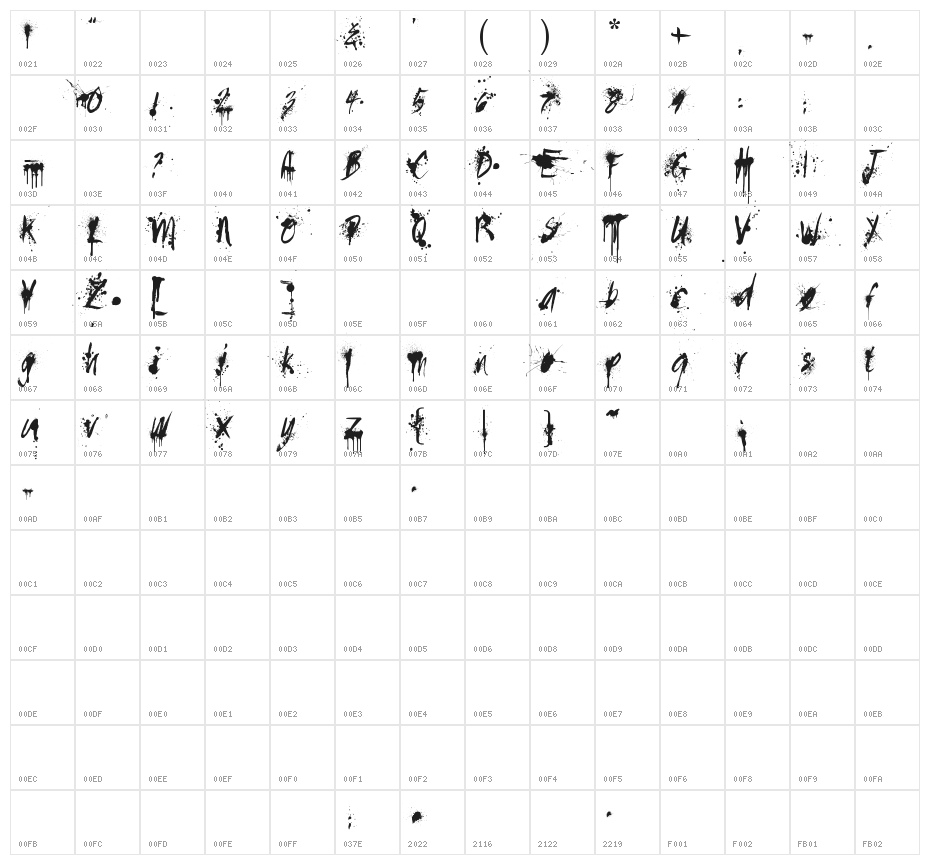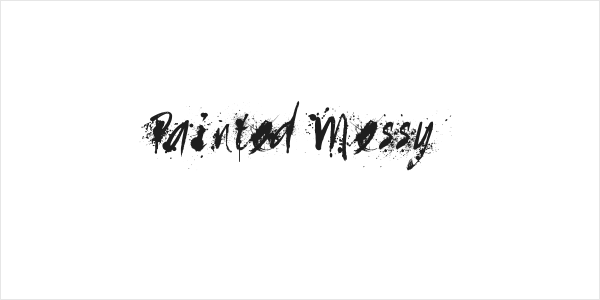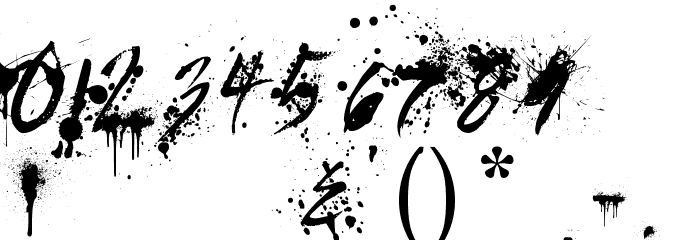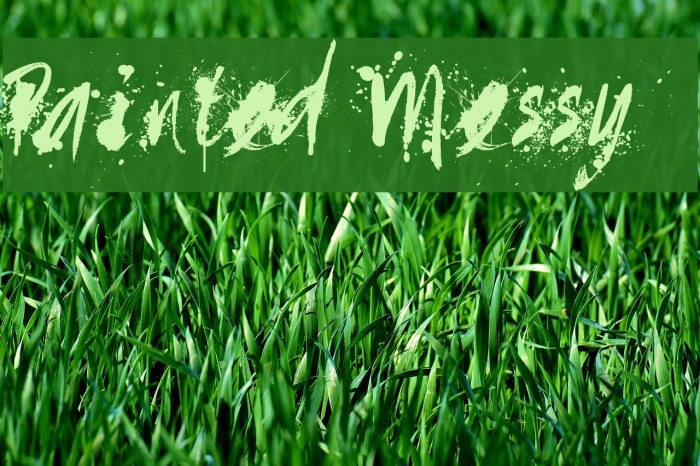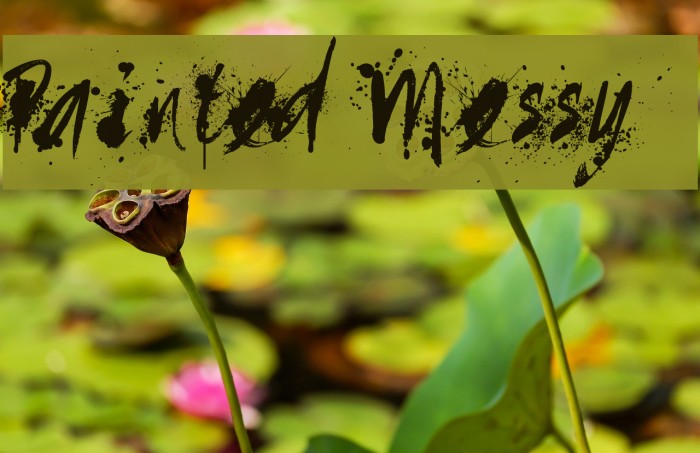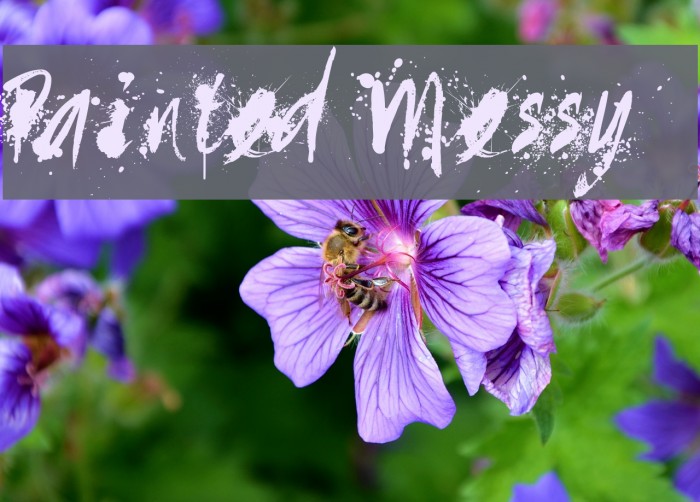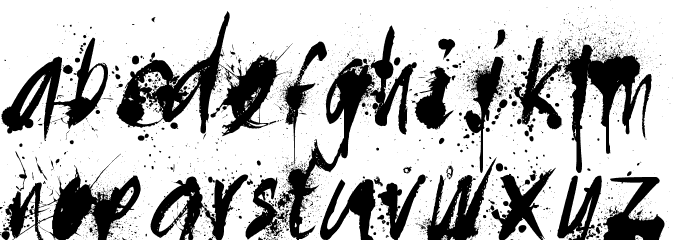
Painted Messy Font
Painted Messy Description
This font exhibits a bold, expressive style reminiscent of graffiti art, with each character appearing as if it has been painted with a brush or spray can. The letters are irregular and dynamic, featuring splatters and drips that add a sense of movement and chaos. The uppercase and lowercase letters maintain a consistent style, with exaggerated strokes and a rough, textured appearance. Numbers and special characters follow the same aesthetic, contributing to the overall messy yet artistic vibe. This font is ideal for projects that require a rebellious or edgy look, capturing attention with its unique and unconventional design.
| Overall Style | Modern, Urban, Artistic |
| Proposed Projects | Ideal for street art designs, music album covers, urban-themed posters, and edgy branding projects. |